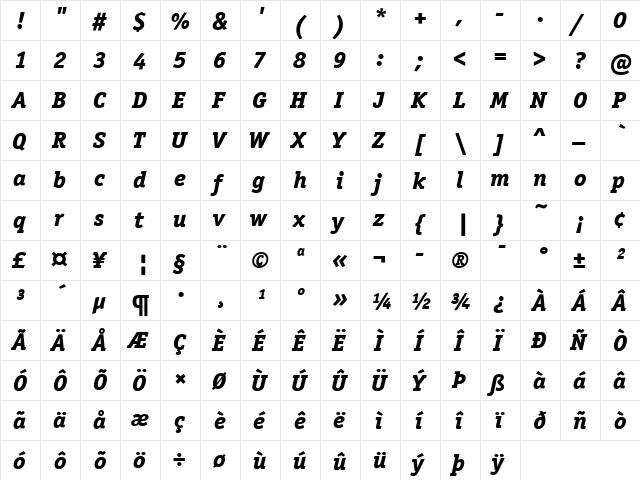
OfficinaSerITC ExtraBold Italic
ExtraBold Italic · \ International Typeface Corporation and by Erik Spiekermann, Ole Schaefer  ·
Design Context for OfficinaSerITC Typeface
OfficinaSerITC offers clean, dependable letterforms without strong stylistic allegiance, making it a practical choice for designers who need flexibility. Its italic angle brings a sense of urgency and motion to the letterforms. Its bold stroke weight gives it real presence on the page.
Pro Tip: Use OfficinaSerITC for emphasis, pull quotes, and subheadings where its slanted energy can add rhythm to the layout.